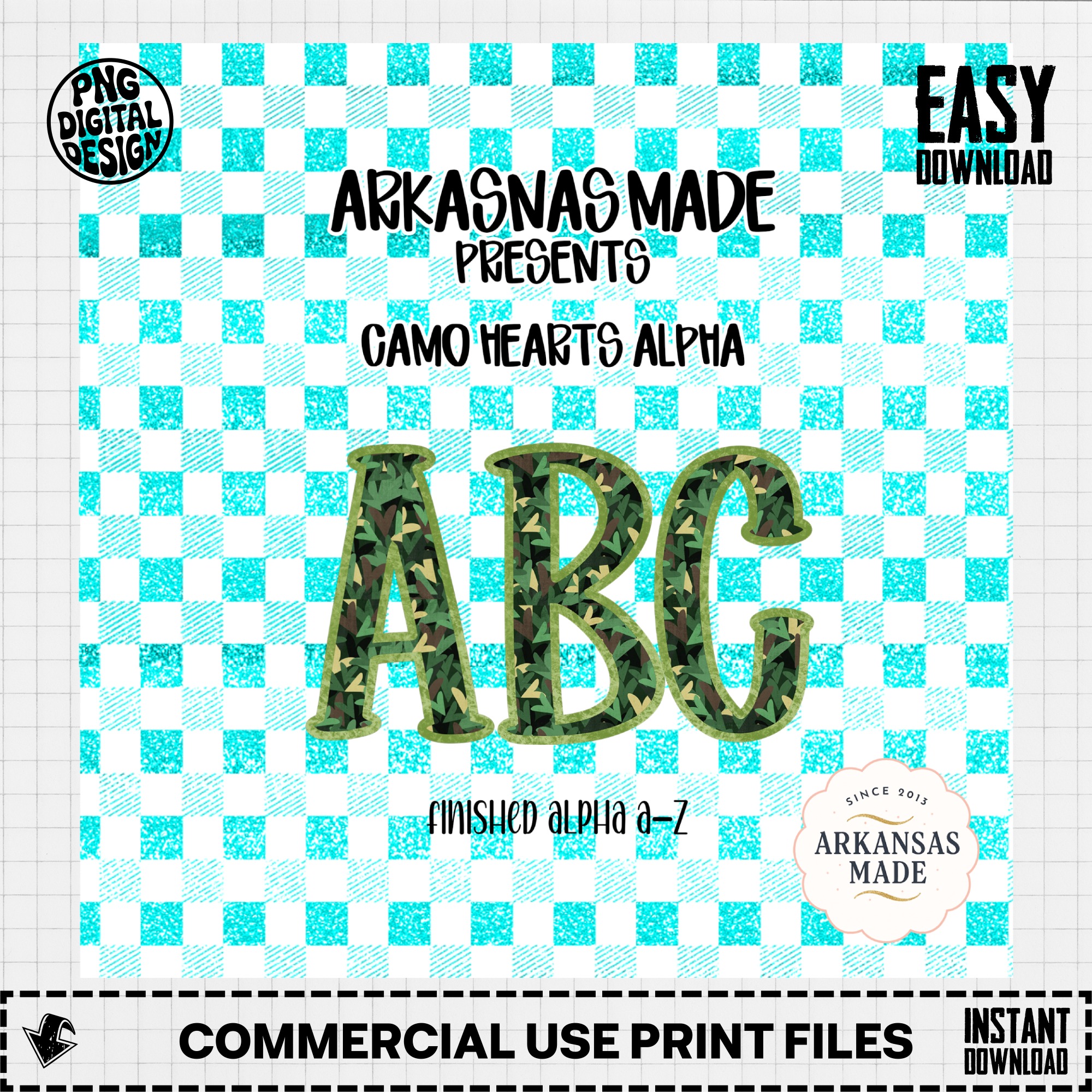
Unlock your creativity with our unique Camo Hearts Alpha Digital Download. This versatile PNG Alpha product features a complete A-Z alphabet, each letter adorned with a distinct camouflage hearts pattern, perfect for adding a rustic or adventurous touch to your projects. Ideal for various digital and physical crafts, this instant download provides high-quality graphics for seamless integration into your designs.
* Full A-Z alphabet included.
* Unique camouflage hearts design for each letter.